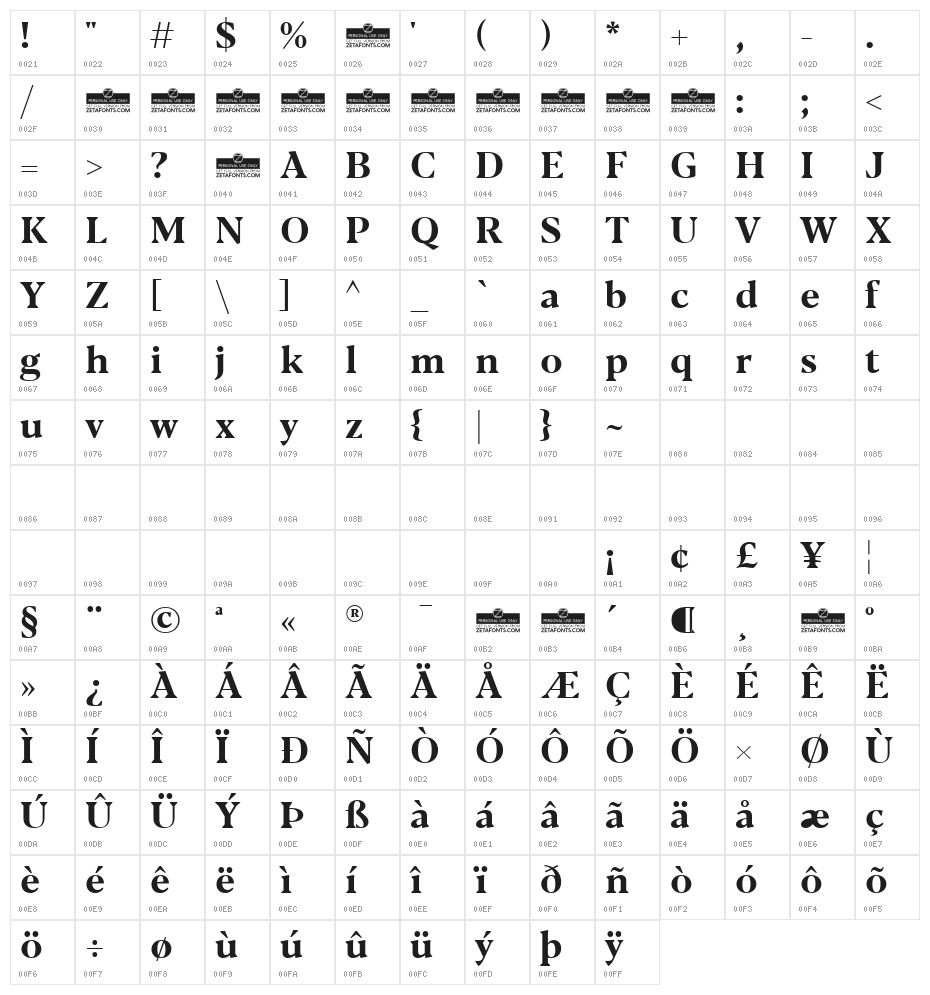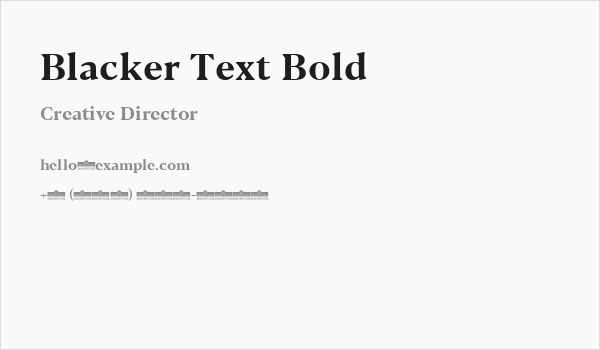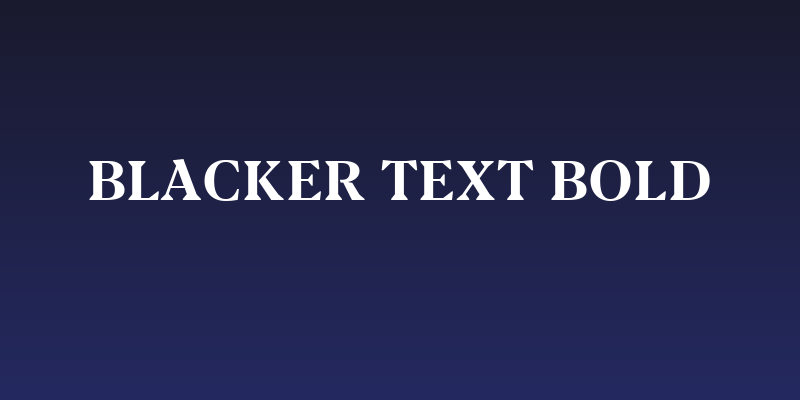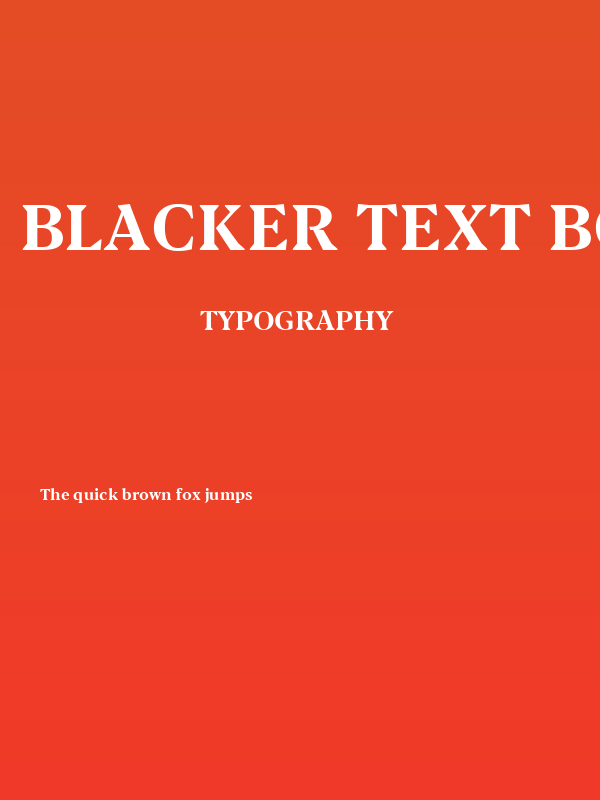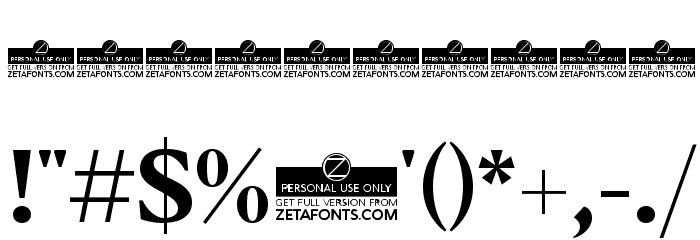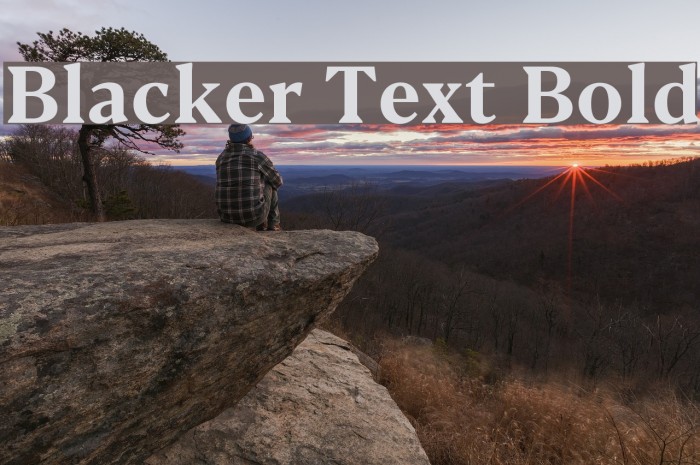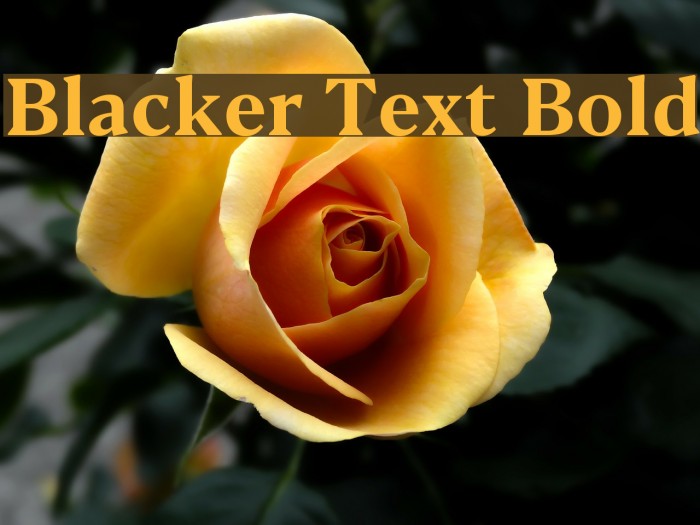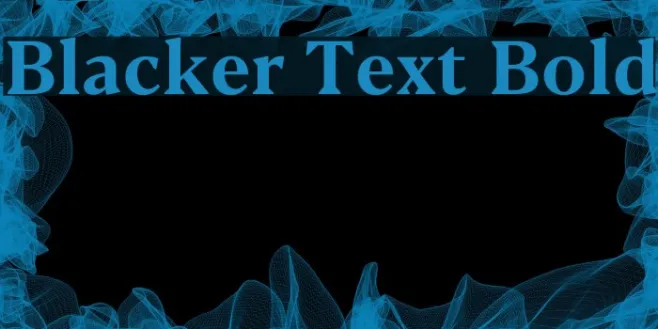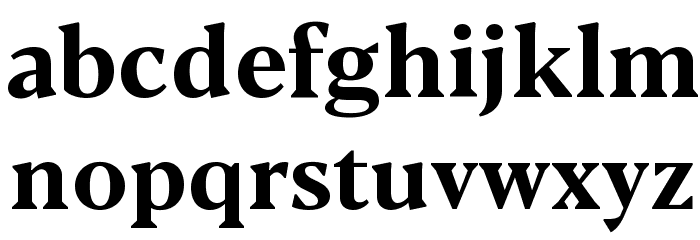
Blacker Text Bold Font
Blacker Text Bold Description
This font exhibits a bold and authoritative presence, characterized by its strong serif features and high contrast between thick and thin strokes. The uppercase letters are robust and commanding, while the lowercase letters maintain a consistent weight, offering a harmonious balance. The serifs are pronounced, adding a touch of elegance and tradition. The numerals are clear and legible, and the special characters are designed with the same boldness, ensuring consistency across all glyphs. This font is ideal for making a strong visual impact.
| Use Case | Headlines, Logos, Editorial Design |
| Proposed Projects | Ideal for headlines, branding, editorial design, and any project requiring a bold, classic look. |